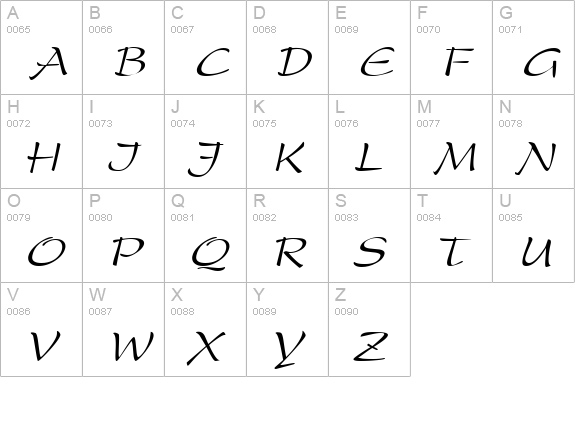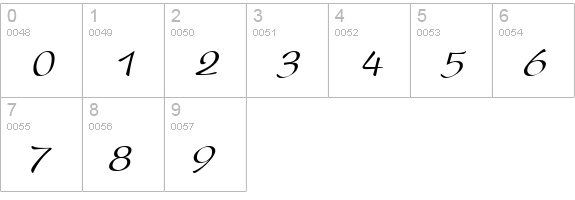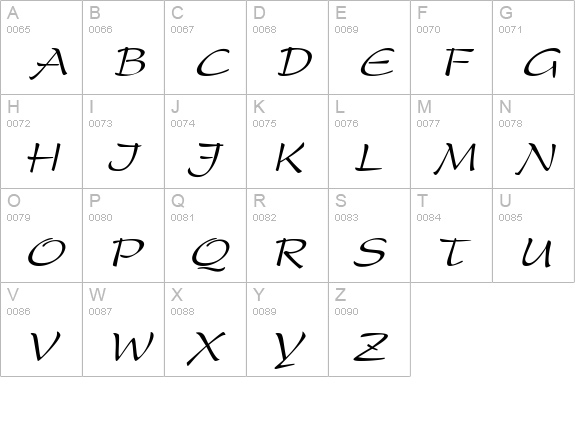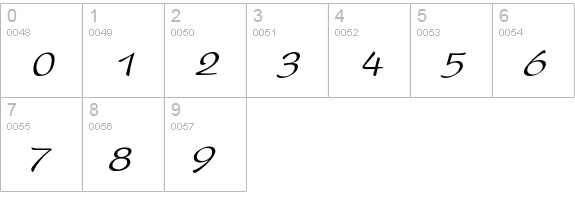
PrestonScript Italic is a distinctive, italic variant in the PrestonScript typeface family \xE2\x80\x94 well suited to design and typography projects.
PrestonScript Italic font is a beautifully crafted typeface that exudes elegance and sophistication. Its graceful curves and stylish strokes make it perfect for adding a touch of sophistication to any design project. Whether you're creating wedding invitations, branding materials, or editorial content, PrestonScript Italic font will elevate your work to the next level. The best part? This stunning font is available for free download at FontsMarket.com. Now you can access this premium font without breaking the bank. Don't miss out on the opportunity to enhance your designs with the timeless charm of PrestonScript Italic font. Download it today and unleash your creativity!